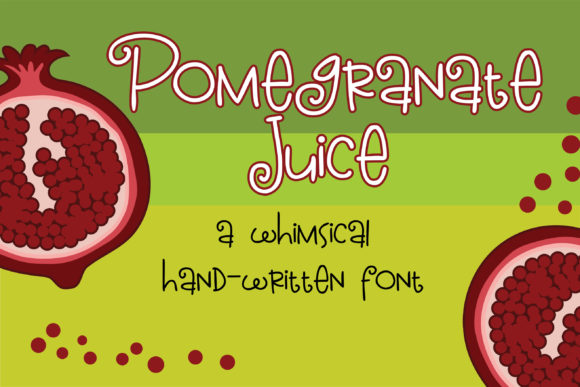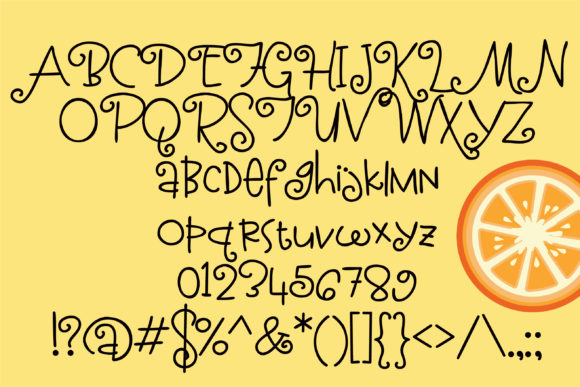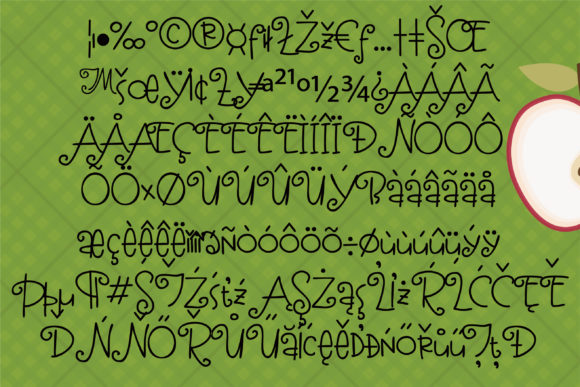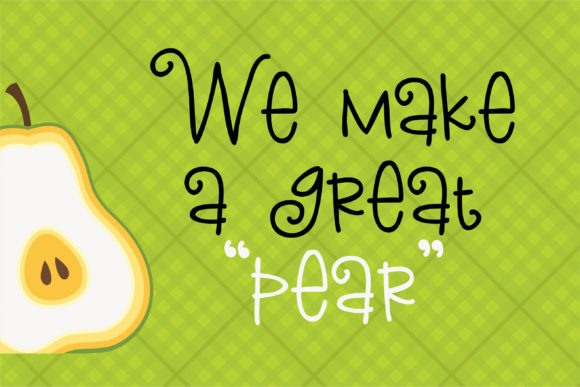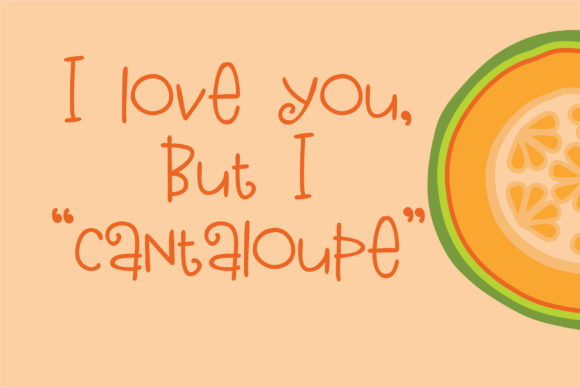
HomeScript FontsPomegranate Juice Font Script Fonts Pomegranate Juice Font FacebookXPinterestWhatsApp Pomegranate Juice Font Poster 2 Pomegranate Juice Font Poster 3 Pomegranate Juice Font Poster 4 Pomegranate Juice Font Poster 5 About Pomegranate Juice Font This sans serif font is whimsical and includes sports curls throughout. DOWNLOAD NOW People also explored Picture Font Hello Bethy Font Marshmelow Font Forest Leaves Font Kratton Font Sparkle Font Geduk Autism Font Sweet Farmhouse Font Coopucake Font 292 0 TagsPomegranate Juice Font Previous articleSweet and Sour FontNext articleEager to Please Font LEAVE A REPLY Cancel reply Comment: Please enter your comment! Name:* Please enter your name here Email:* You have entered an incorrect email address! Please enter your email address here Website: Save my name, email, and website in this browser for the next time I comment. Personal Use Free Market Love Personal Use Free Read more about this font Ryujin Attack Personal Use Free Read more about this font Bintang Noela Personal Use Free Read more about this font Micahel Personal Use Free Read more about this font BLOG Using Fonts in Digital Marketing: Tips to Strengthen Your Brand Identity In the realm of digital marketing, every visual element plays a crucial role in shaping a brand's identity, and fonts are no exception. The... To increase your work productivity, choose the most readable fonts. Where to Buy American Fonts Online in 2024 How to Install and Use Fonts on Windows, macOS, and Web Projects